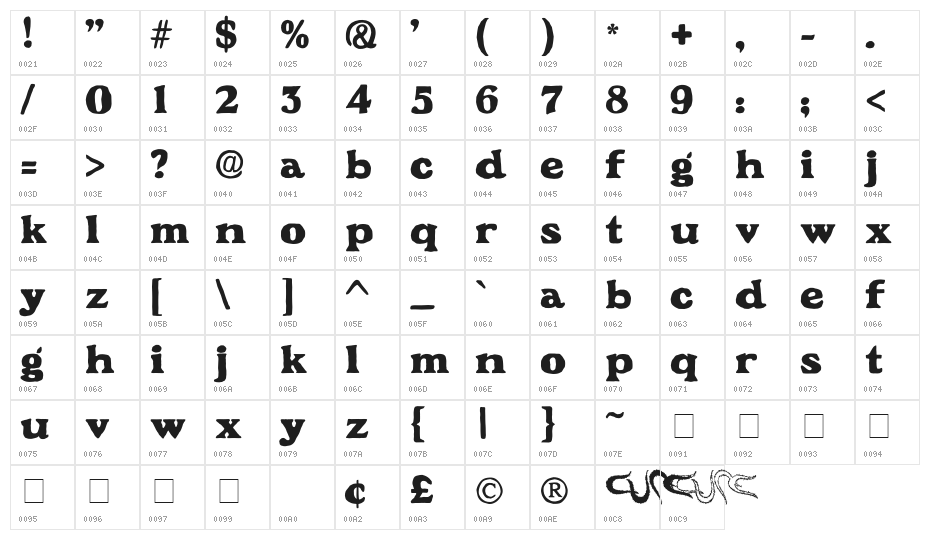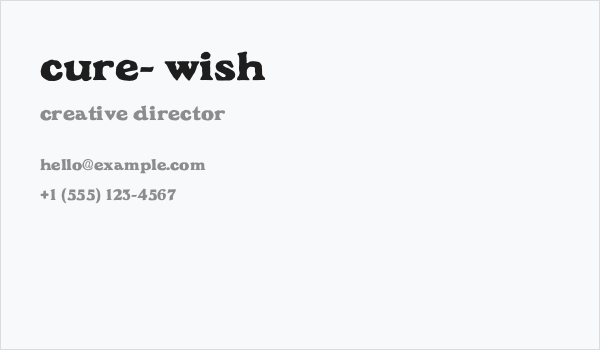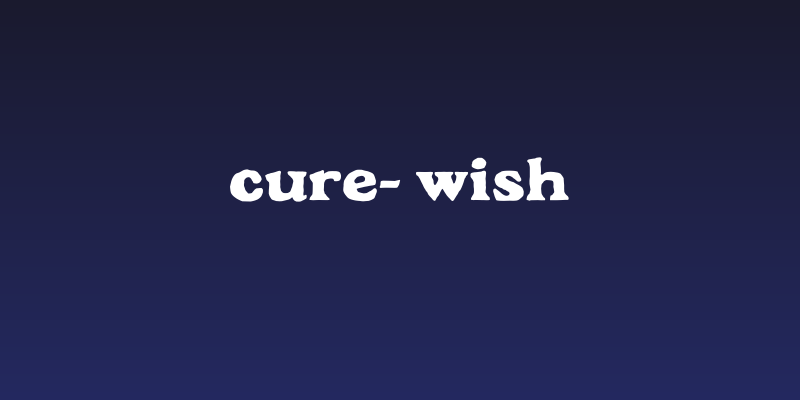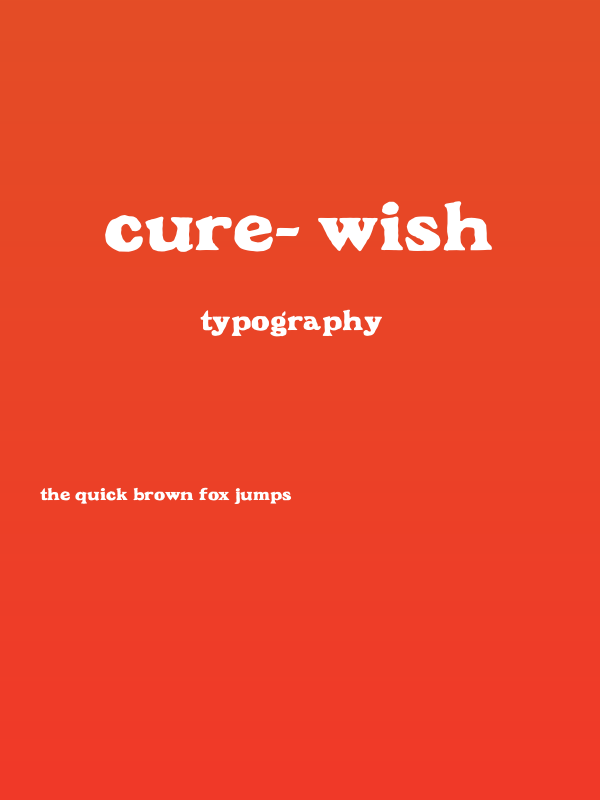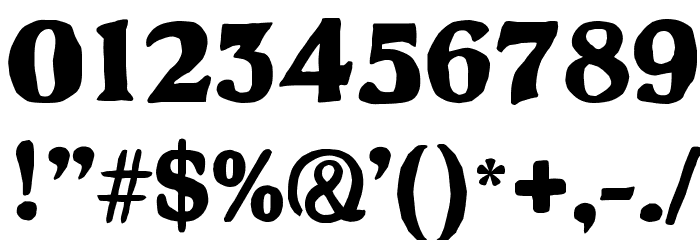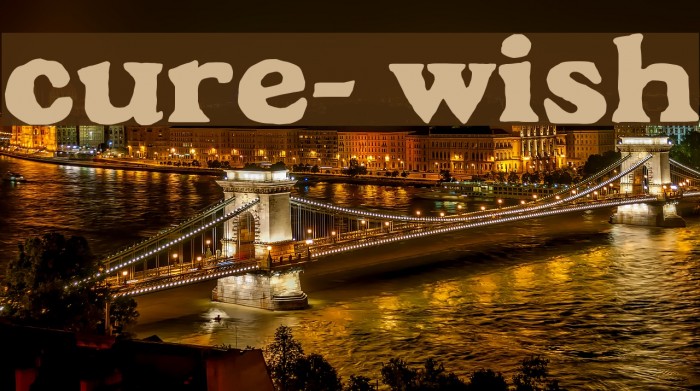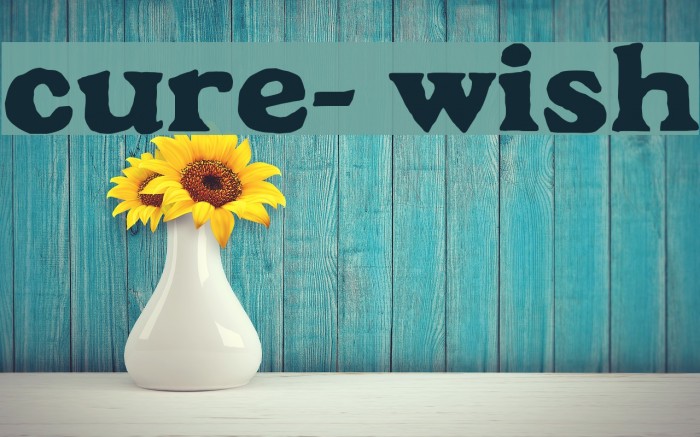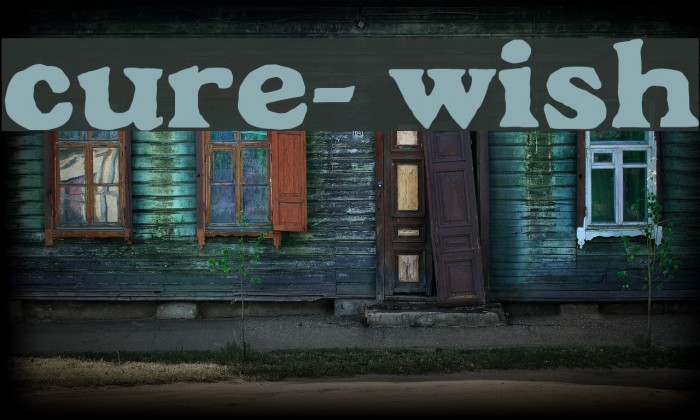
Cure- Wish Font
Cure- Wish Description
This font features a bold and robust design with thick, rounded strokes that give it a strong presence. The characters are slightly condensed, providing a compact appearance while maintaining readability. The serifs are prominent and add a touch of classic elegance to the overall style. The numbers and special characters are consistent with the alphabet, offering a cohesive look across all glyphs. This font's high contrast between thick and thin strokes enhances its legibility and visual impact, making it suitable for attention-grabbing designs.